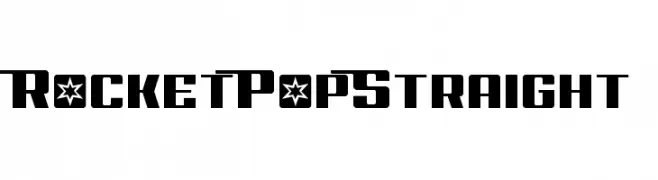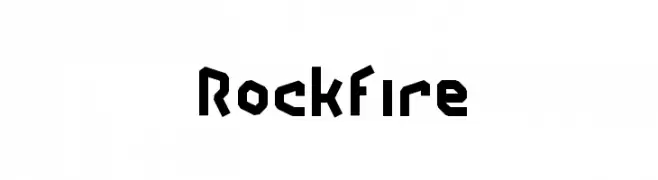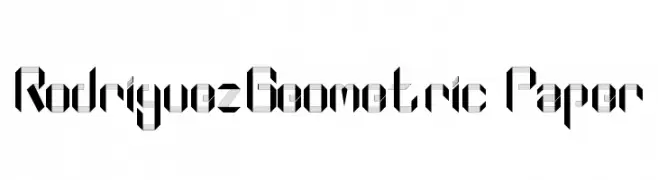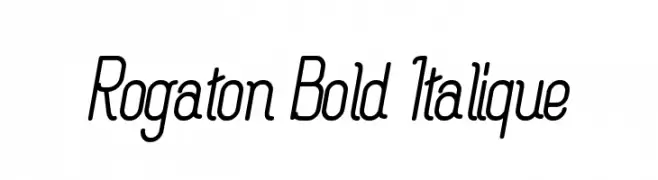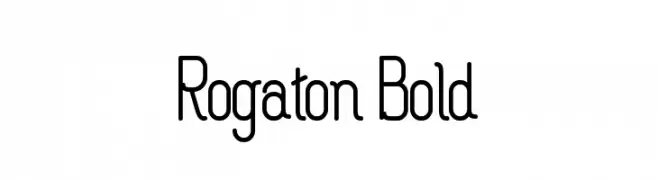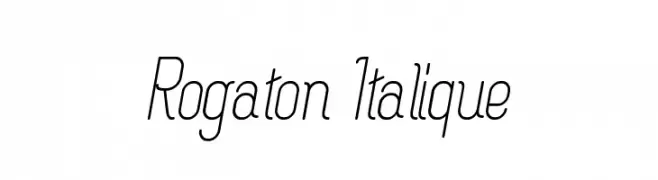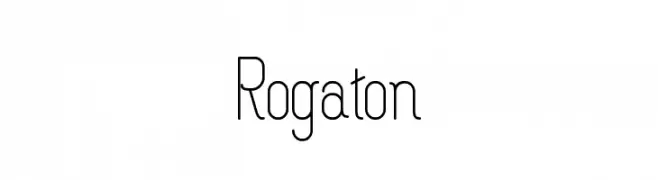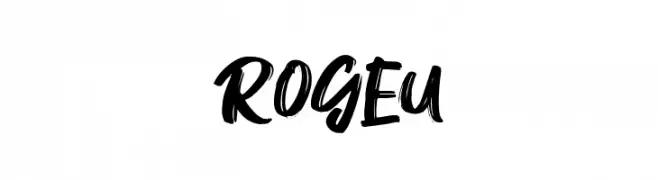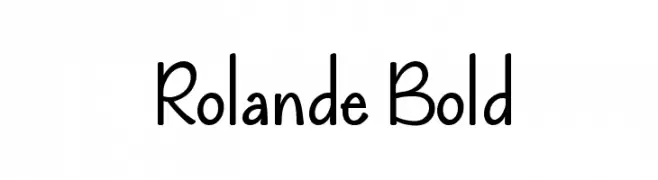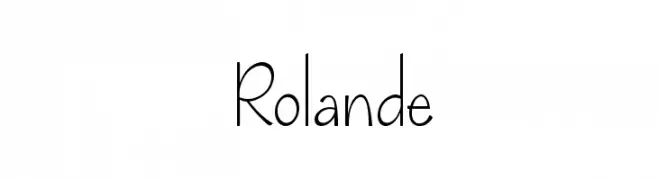
( Iconian Fonts - Daniel Zadorozny - www.iconian.com )
A bold, geometric font with decorative star motifs and a futuristic style.
( Jaycobs - Jay Cobs - www.jaycobs.fr )
A bold, angular font with a geometric and edgy design.
( Jeanne Arielle Rodriguez )
A geometric, three-dimensional font with bold, angular lines and a paper-like appearance.
( Luc Mahler )
A sleek, modern font with elongated, narrow characters and minimal contrast.
( Luc Mahler )
A modern, monospaced font with a sleek, minimalistic design.
( Luc Mahler )
A bold, italicized, and modern font with a sleek, condensed style.
( Luc Mahler )
A sleek, modern italic font with elongated, slightly condensed characters.
( Khurasan - Syaf Rizal - creativemarket.com/khurasan?u=khurasan )
A bold, expressive brush script font with dynamic strokes and artistic flair.
( Lauren Thompson - www.nymfont.com/ )
A playful, hand-drawn font with tall, narrow letters and a whimsical style.
( Lauren Thompson - www.nymfont.com/ )
A playful, rounded font with a whimsical and informal style.